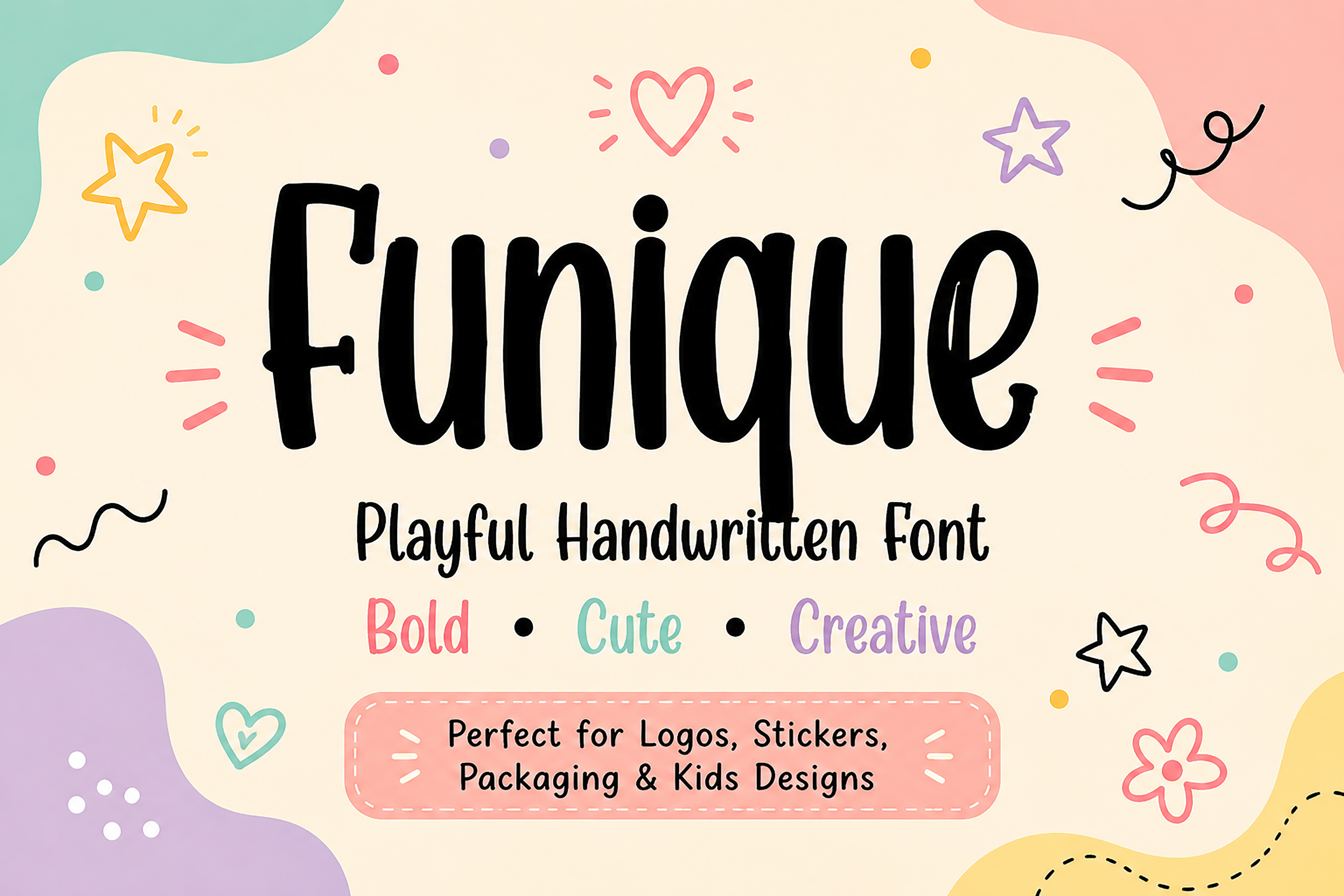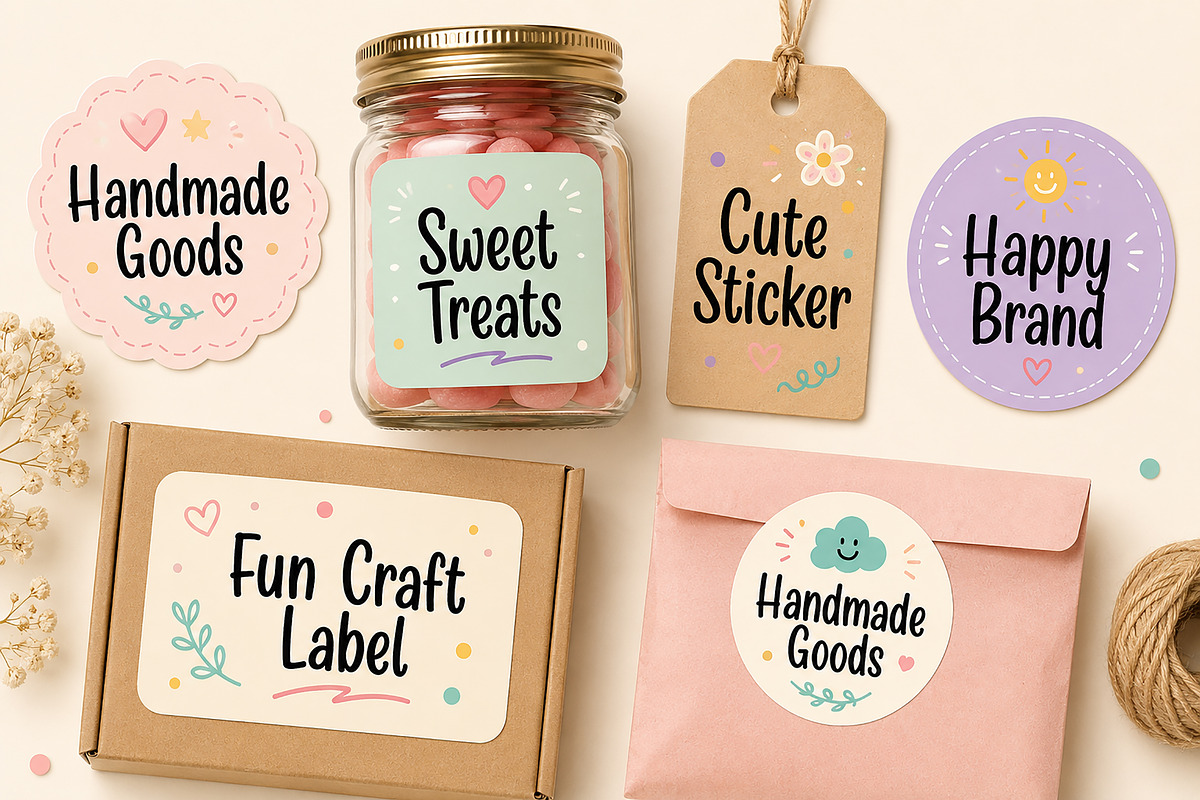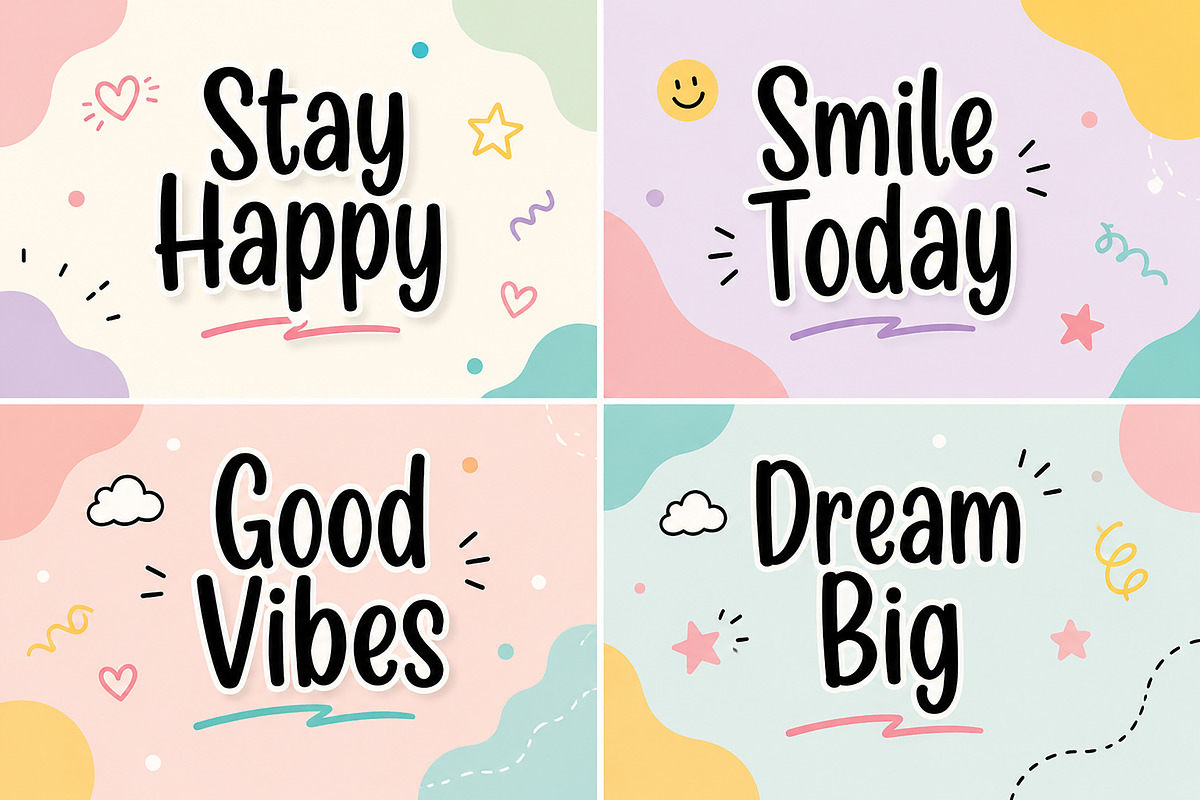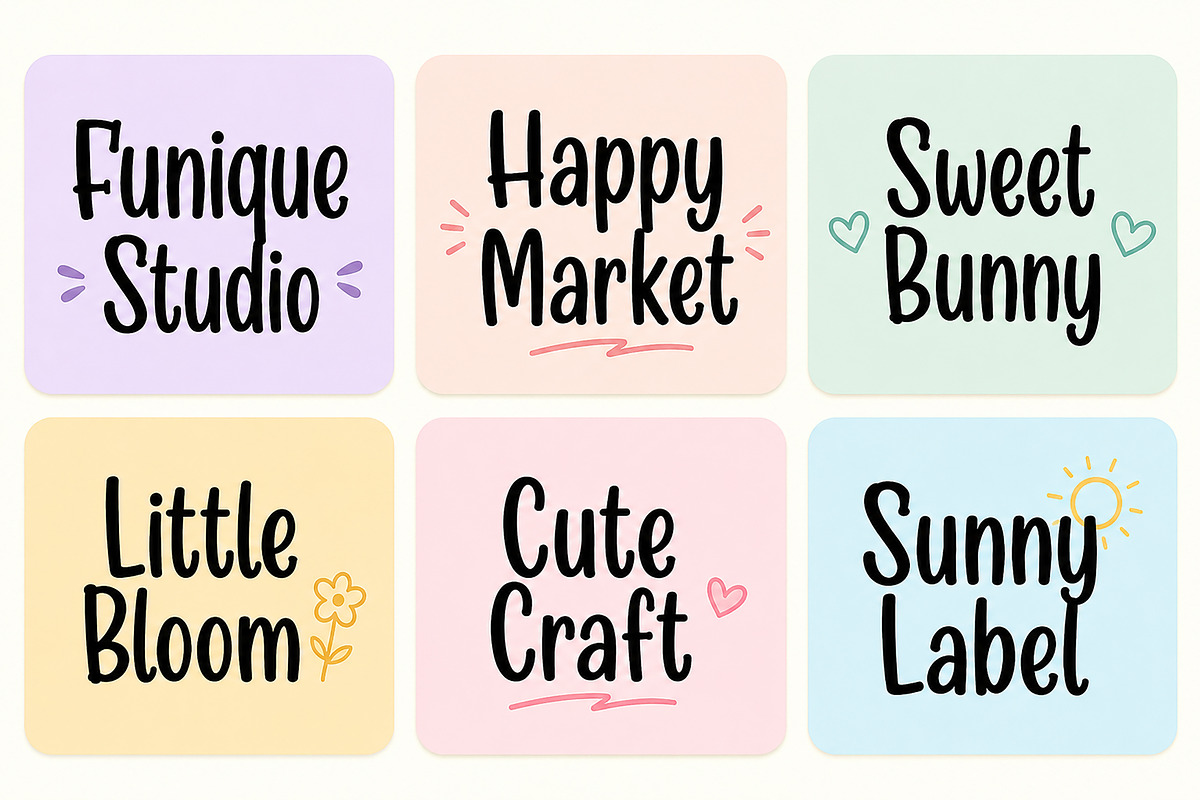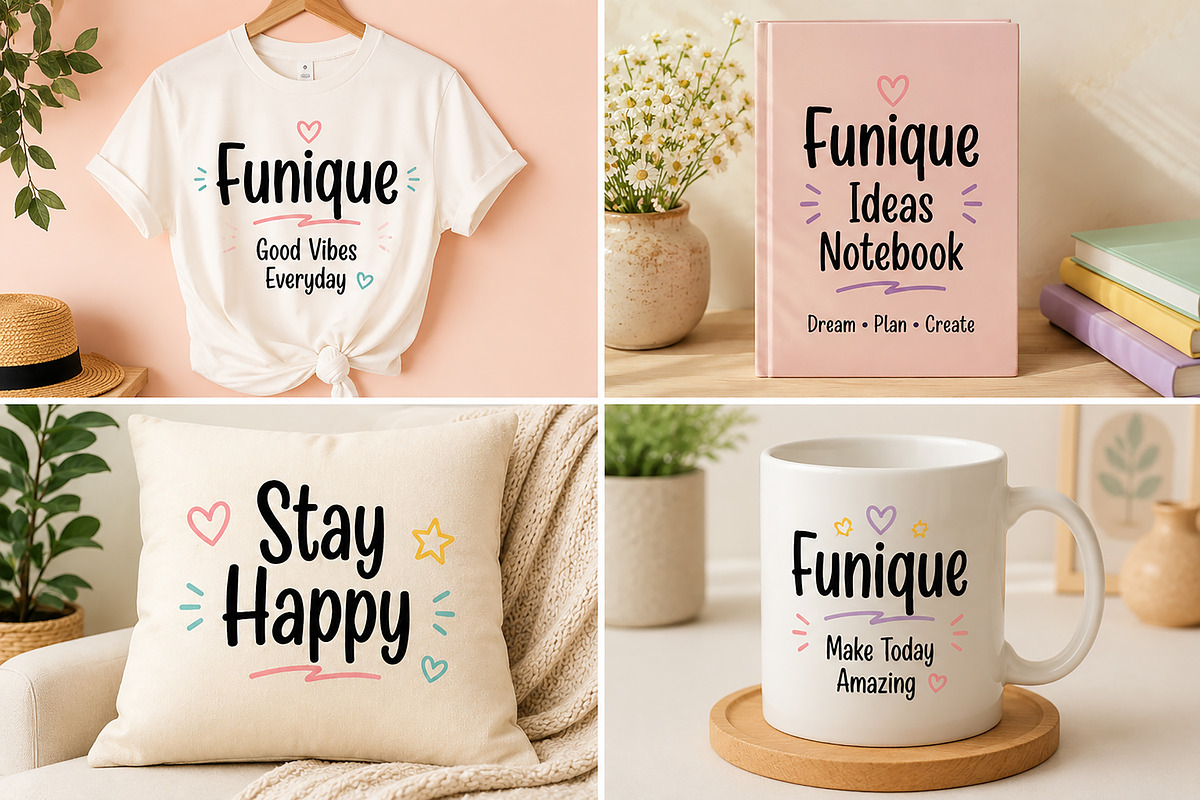
Funique – Handwritten Display Font
Funique – Playful Handwritten Display Font
Bring joy, creativity, and personality to your designs with Funique, a playful handwritten display font designed to make every project feel warm, fun, and approachable. With its bold rounded strokes and handcrafted character, Funique is perfect for eye-catching titles, cheerful branding, stickers, packaging, social media graphics, children's products, and creative crafts.
Whether you're designing for a small business, creating printable products, or building a cute brand identity, Funique adds a friendly and modern handmade touch that instantly stands out.
Logos & Branding
Stickers
Children's Products
T-Shirts & Merchandise
Posters
Greeting Cards
YouTube Thumbnails
Craft Projects
Invitations
Quotes
Labels & Tags
Printable Designs
Playful Handwritten Style
Bold & Rounded Letterforms
Fun Display Typeface
Clean and Easy to Read
Perfect for Cute & Creative Branding